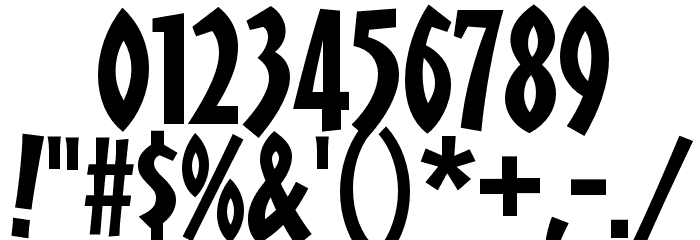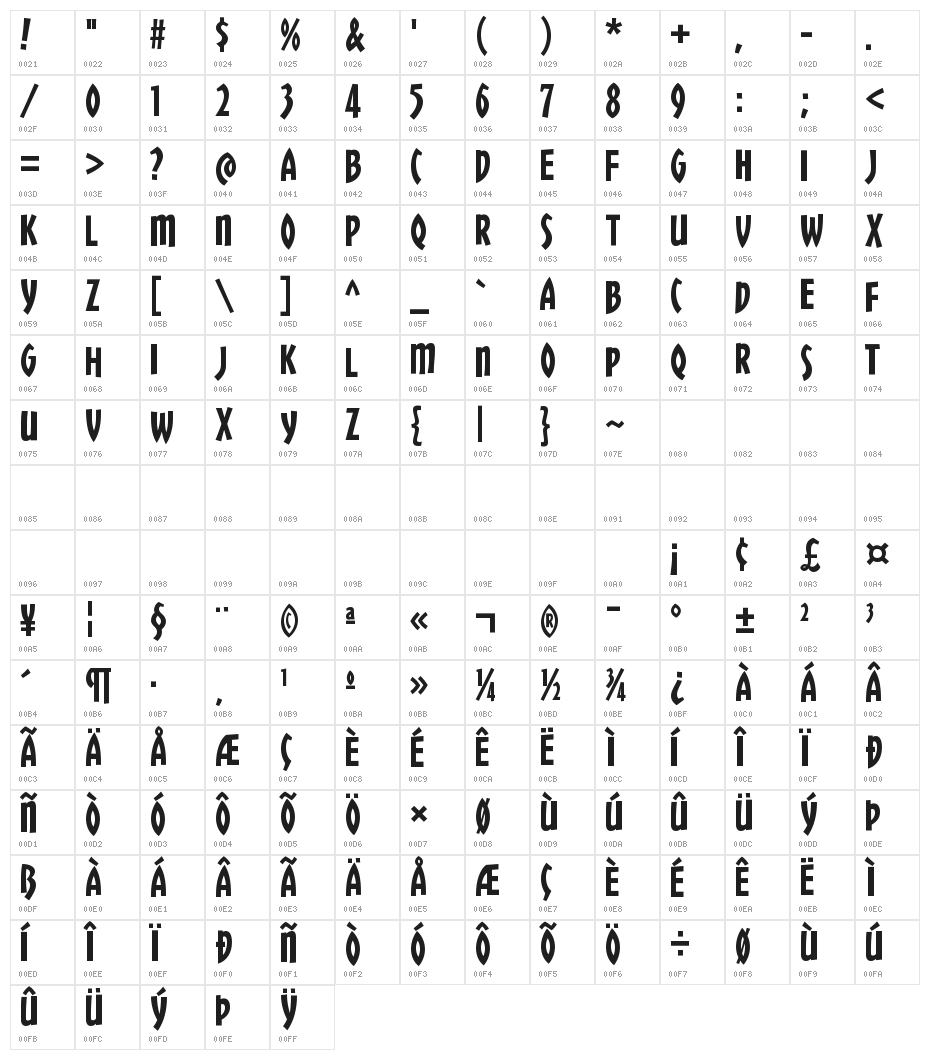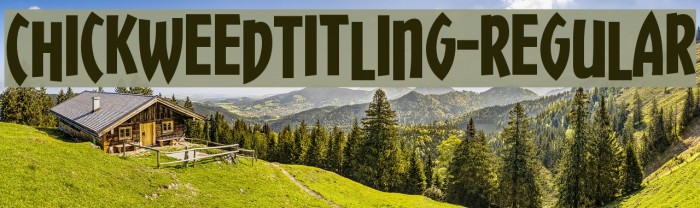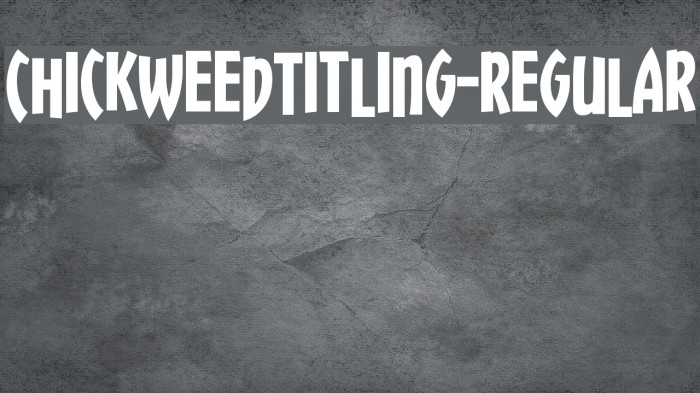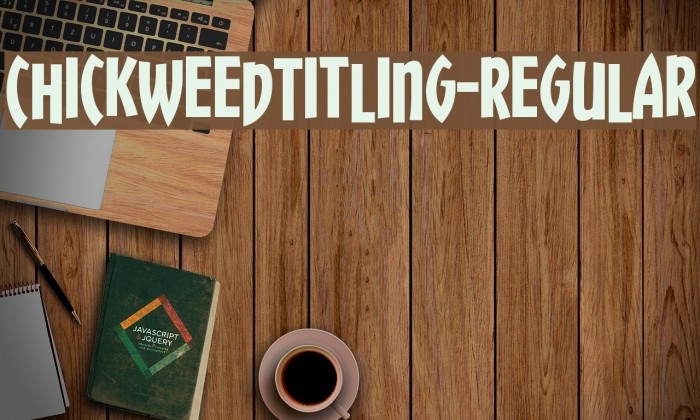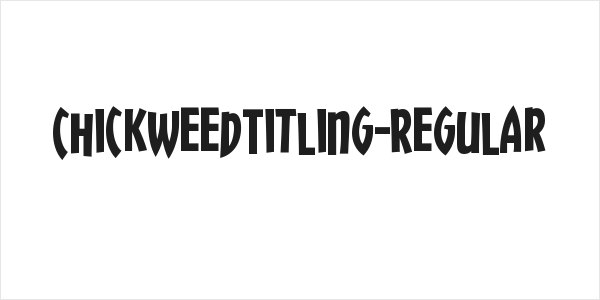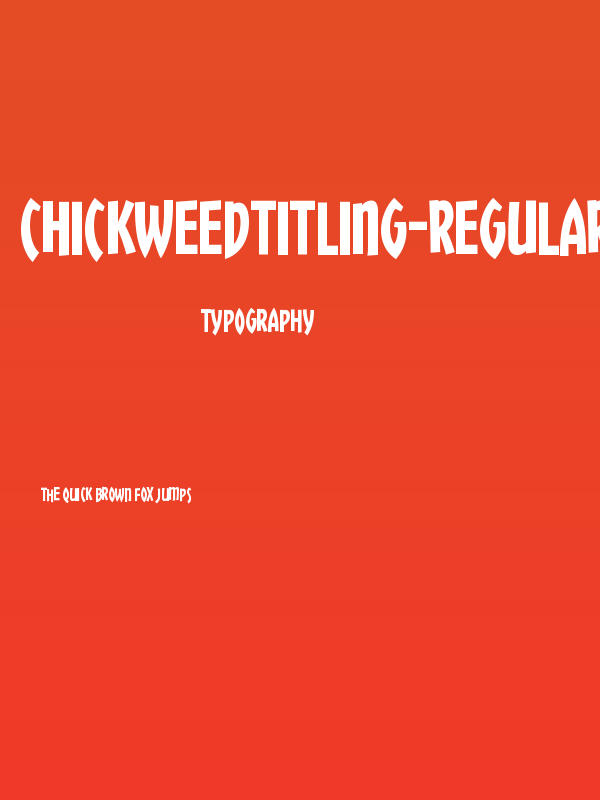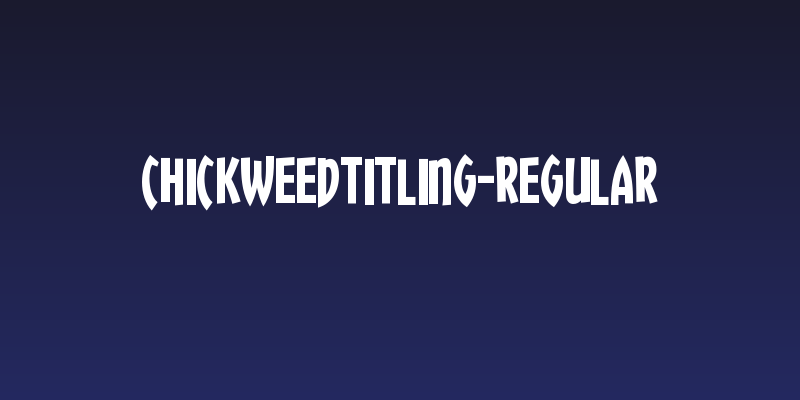
ChickweedTitling-Regular Font
ChickweedTitling-Regular Description
This font features a bold and playful design with a unique, hand-drawn aesthetic. The letters are slightly irregular, giving it a whimsical and artistic feel. The uppercase and lowercase characters maintain a consistent style, with exaggerated curves and a slightly condensed form. The numbers and special characters follow the same playful design, making it suitable for creative projects. The overall appearance is dynamic and eye-catching, perfect for adding a touch of personality to any design.
| Overall Style | Playful, Artistic, Whimsical |
| Proposed Projects | Ideal for children's books, playful branding, posters, and creative invitations. |